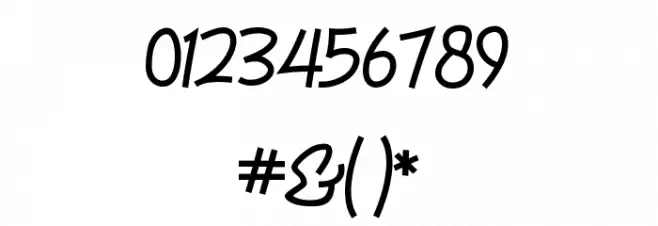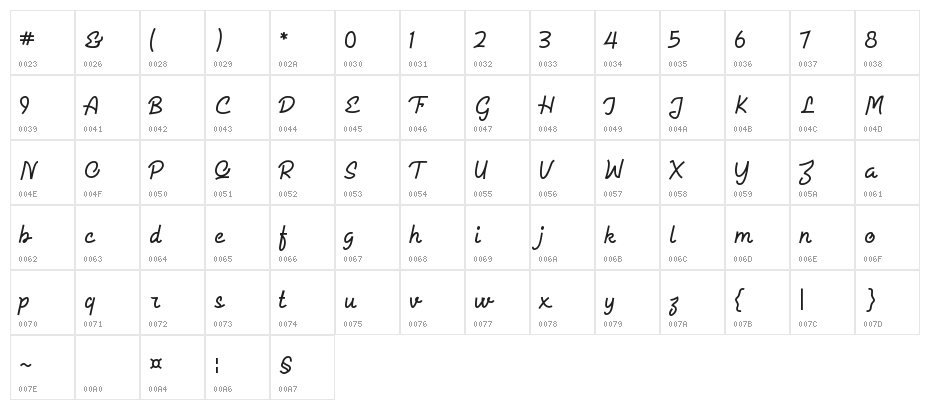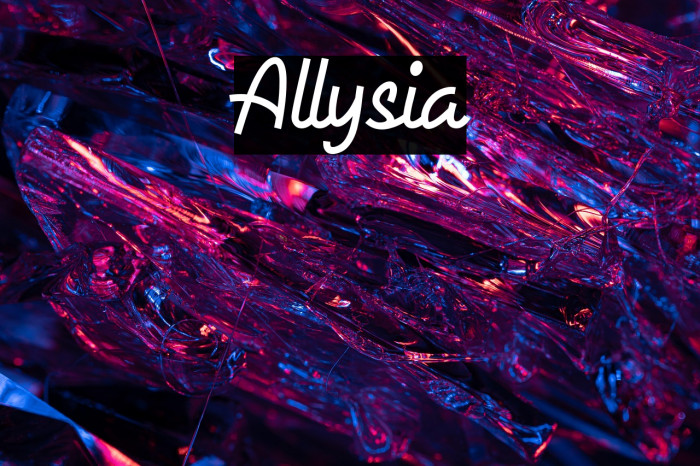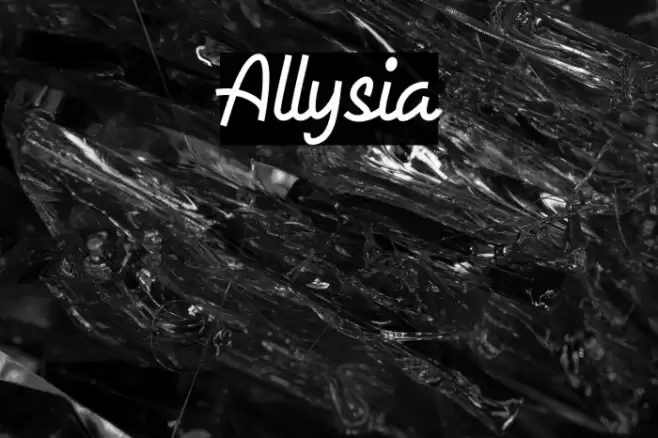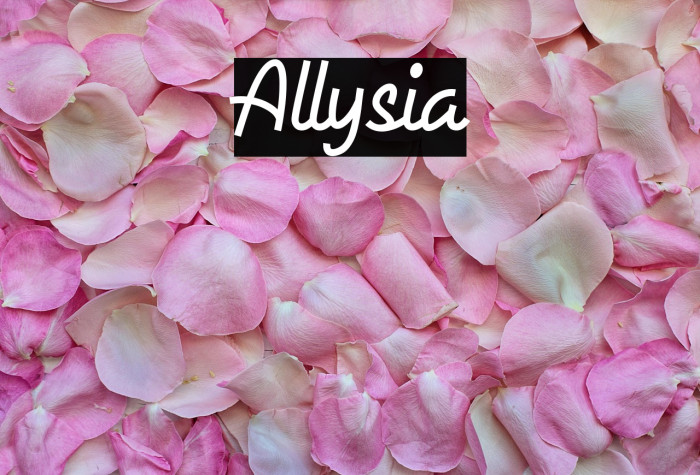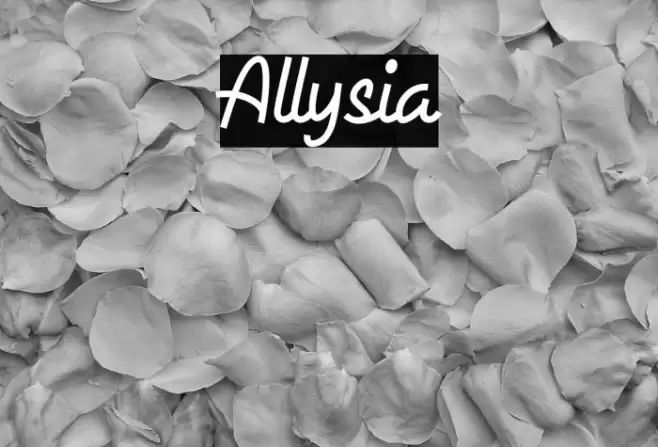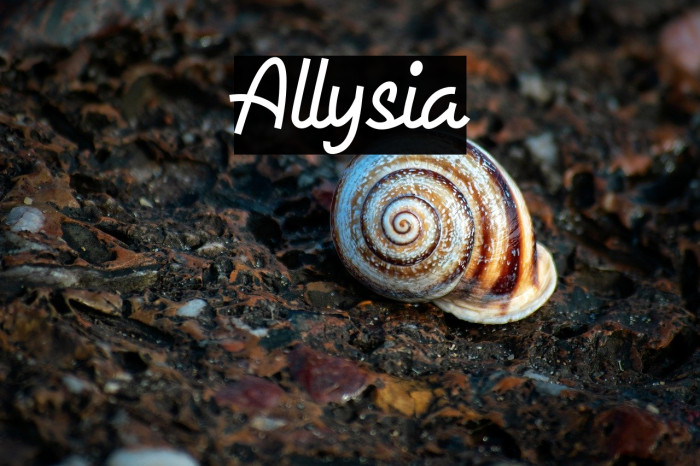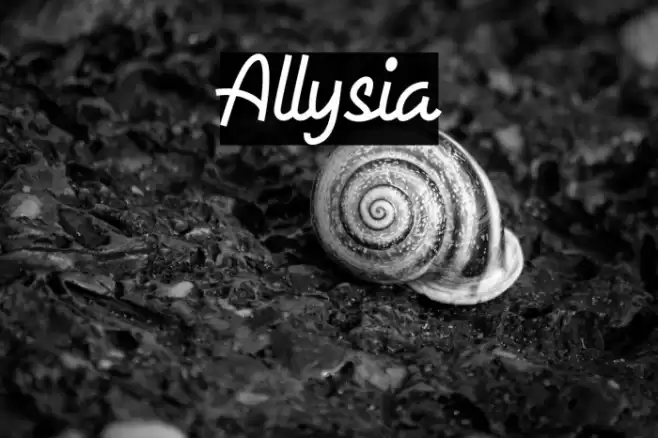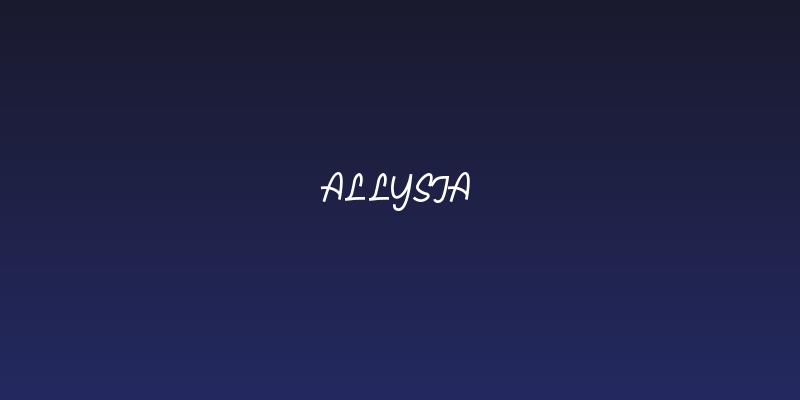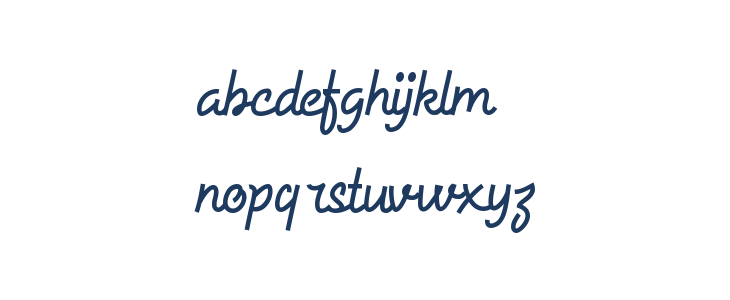
Allysia Font
Allysia Description
This font features a playful and flowing script style, characterized by its smooth, cursive letterforms that convey a sense of elegance and informality. The uppercase letters are slightly more structured, while the lowercase letters exhibit a more relaxed and connected style, enhancing the font's overall fluidity. The numbers and special characters maintain the same playful aesthetic, making them cohesive with the alphabetic characters. The strokes are consistent in thickness, providing a balanced appearance without high contrast. This font is suitable for projects that require a personal touch, such as invitations, greeting cards, or branding materials that aim to convey warmth and approachability.